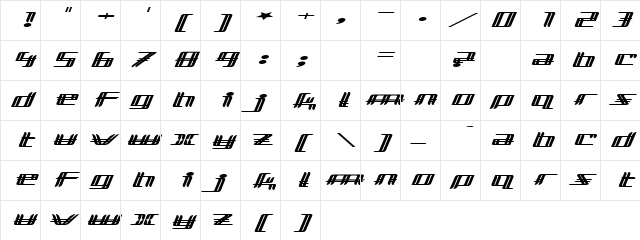
Lewinsky Regular Free Font
Lewinsky Regular
Design Context for Lewinsky
Lewinsky is a composed and adaptable typeface that performs quietly and consistently across a wide range of design contexts.